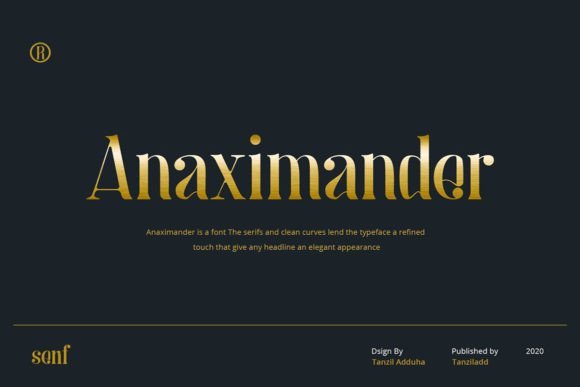
The Perfect Blend of Vintage Charm and Timeless Elegance
There’s nothing quite like the thrill of discovering a font that perfectly captures the essence of a design concept. For designers, it’s a moment that can make all the difference between a good project and a great one. You’re browsing through font libraries, scrolling through endless options, and then – it hits you. A font that’s both familiar and yet, utterly unique. This is exactly what happens when you stumble upon the Anaximander Font.
This beautifully crafted serif font is more than just a design element – it’s an experience. With its bold lines, elegant curves, and classic serifs, it’s the perfect choice for any project that requires a touch of vintage flair. Whether you’re working on a branding project, a packaging design, or even a book cover, the Anaximander Font is sure to add a level of sophistication and style that’s hard to find with other fonts.
Anaximander Font Key Features
- Font Family: Anaximander Font is a serif typeface designed for body text and titles, offering a classic and elegant look.
- Unique Characteristics: The font features a unique blend of classic and modern elements, with subtle flair and elegance, making it suitable for a wide range of applications, including book publishing, magazines, and corporate branding.
Anaximander Font Review
I had the chance to work with the Anaximander font, and I must say it’s a unique and intriguing choice. The font’s design is ✨ attention-grabbing, with a mix of modern and ancient elements that work well together.
One of the strengths of Anaximander is its ✨ versatility. It comes in a variety of weights, from light to bold, making it suitable for a wide range of applications, from headings to body text. The font also features ✨ elegant lines and curves, making it perfect for titles, logos, and other design elements that require a touch of sophistication.
However, I did encounter some limitations ⚠️ with the font’s legibility. At smaller font sizes, the Anaximander font can become ✨ hard to read, especially for those with vision impairments. Additionally, the font’s unique design may not be suitable for all types of content, such as body text or instructional materials.
Overall, I think the Anaximander font is a great choice for designers who want to add a touch of elegance and sophistication to their projects. While it may not be suitable for all types of content, it’s definitely worth considering for titles, headings, and other design elements.
Pros:
- ✨ Attention-grabbing design
- ✨ Versatile, suitable for a wide range of applications
- ✨ Elegant lines and curves
Cons:
- ⚠️ Limited legibility at smaller font sizes
- ⚠️ Not suitable for all types of content
Anaximander Font is ideal for:
– Creating elegant and sophisticated designs for business cards, brochures, or websites.
– Adding a touch of sophistication to presentations, reports, or academic papers.
– Designing unique and eye-catching typography for social media graphics or advertisements.
Tips for Getting the Most Out of Anaximander Font
For the best results, use Anaximander Font in combination with other elegant and sophisticated fonts. Experiment with different font sizes, colors, and styles to create visually appealing designs.
Are there any font variations or weights available for the Anaximander Font?